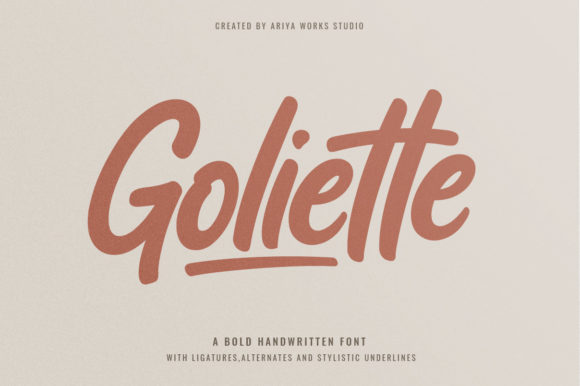
Goliette Font
Goliette is a cool and casual handwritten font. This font is PUA encoded which means you can access all of the glyphs and swashes with ease!
Fall in love with its incredibly versatile style and use it to create spectacular designs!